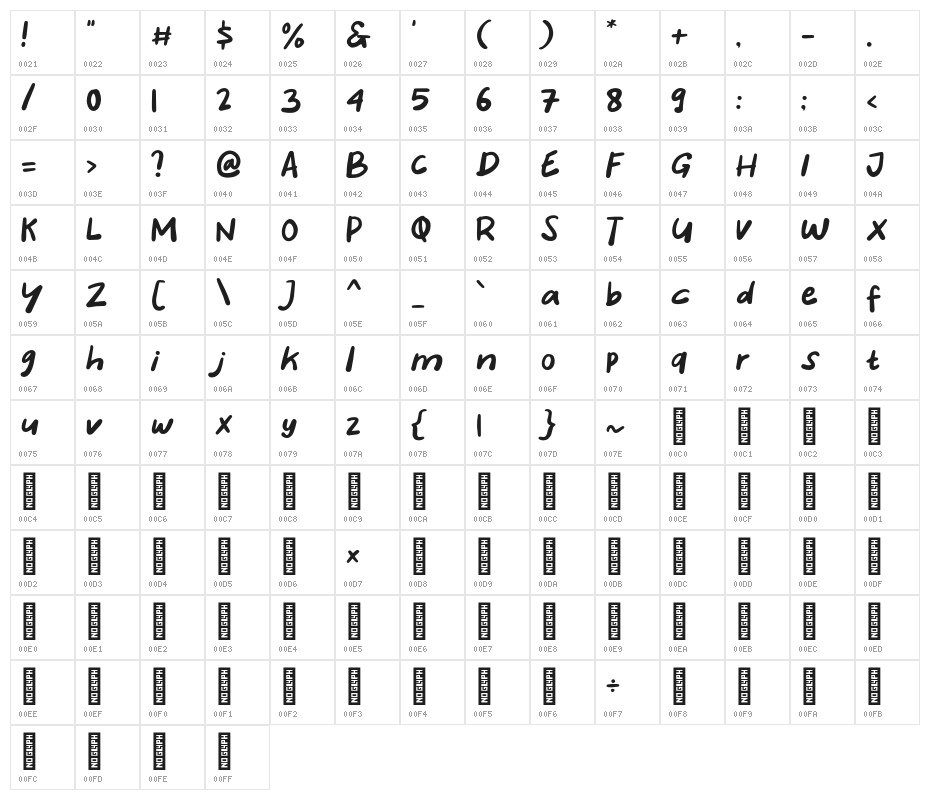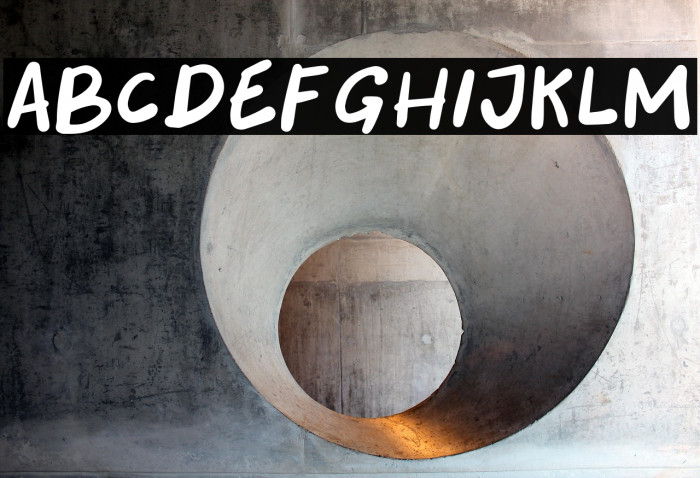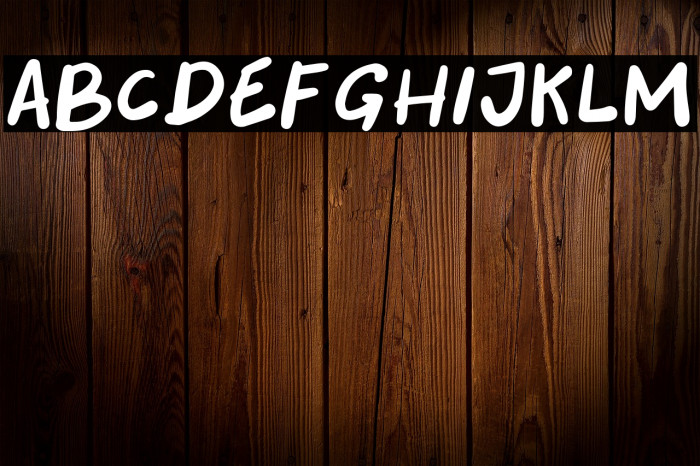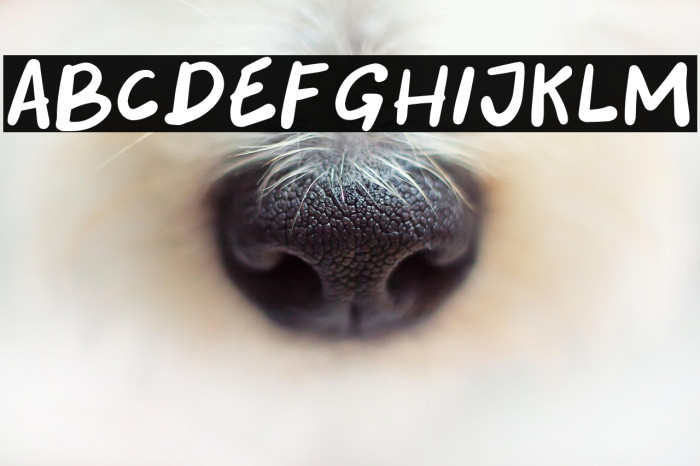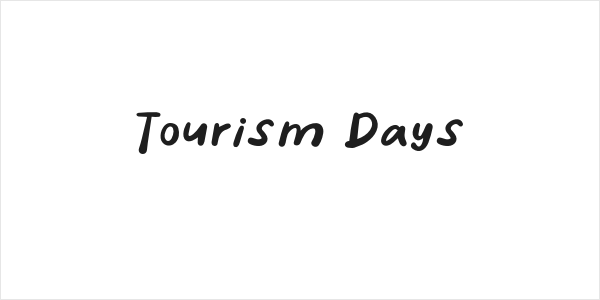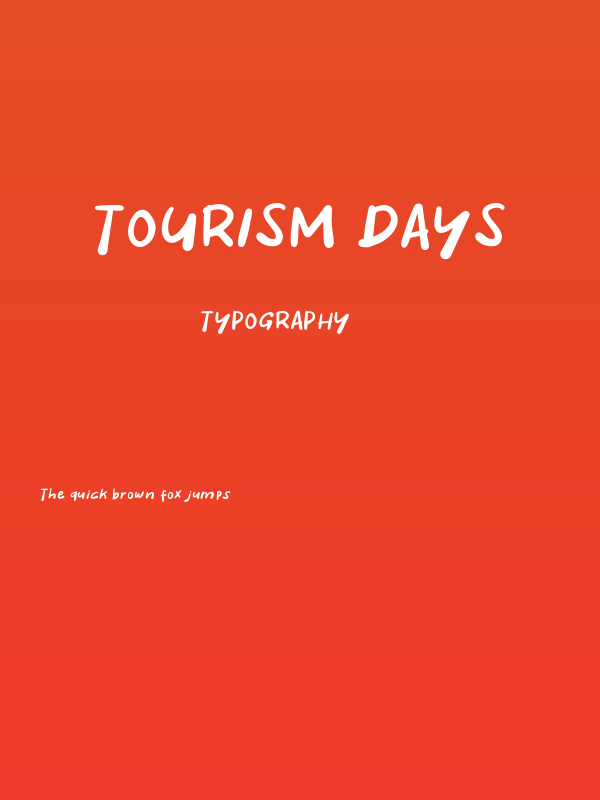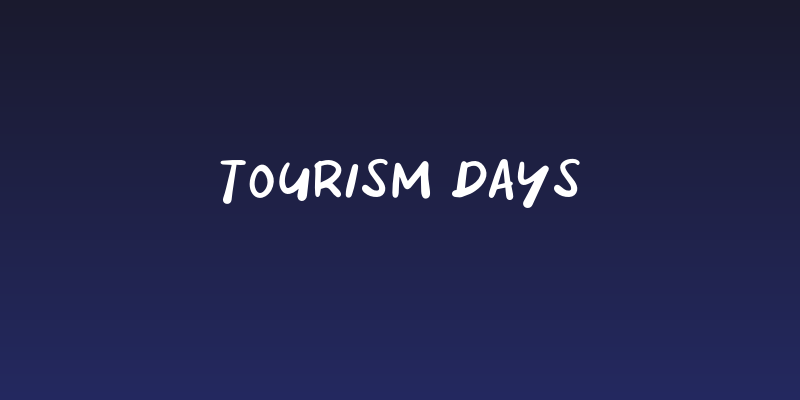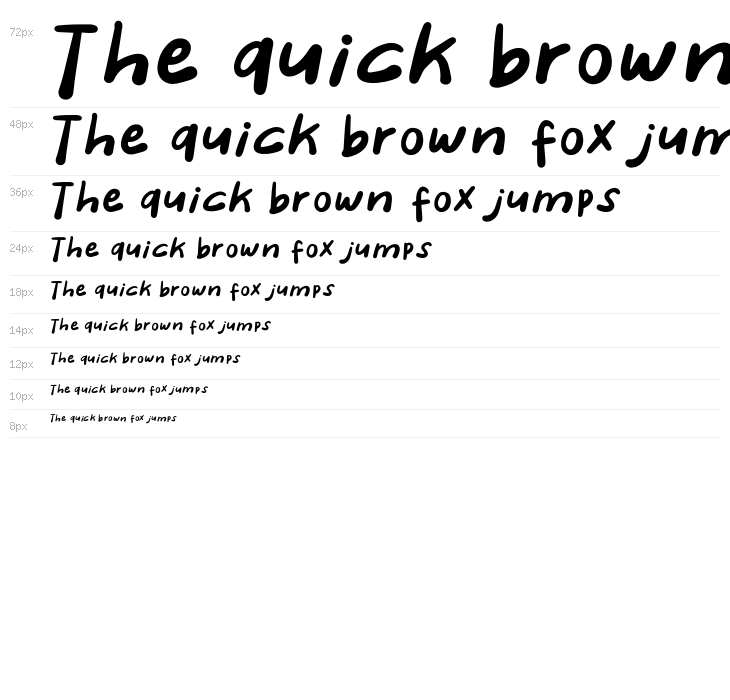
Tourism Days Font
Tourism Days Description
This font features a playful and casual handwritten style, characterized by its rounded and slightly irregular letterforms. The strokes are bold and consistent, giving it a friendly and approachable appearance. The uppercase and lowercase letters maintain a cohesive look, with a slight slant that adds to its informal charm. Numbers and special characters follow the same style, ensuring uniformity across all glyphs. The overall design is reminiscent of a personal note or a casual invitation, making it ideal for projects that require a touch of personality and warmth.
Overall StyleCasual
Use CaseHeadlines, Logos, Invitations
Proposed ProjectsPerfect for greeting cards, invitations, children's books, and playful branding projects.